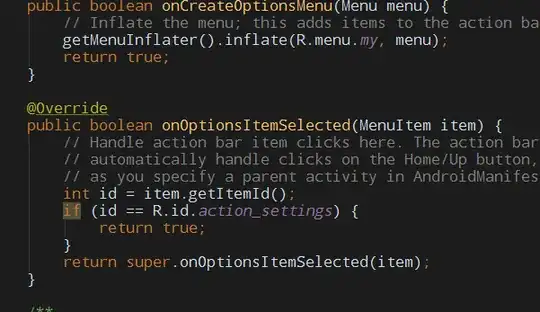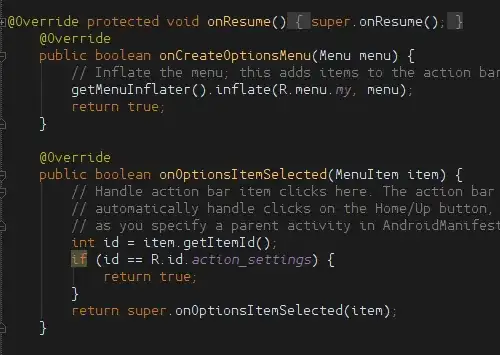
It doesn't even recognise it as a Monospaced font. Then it only shows anti-aliasing when the font size is set to 20 or over. But for other fonts it does it at 16.
The result is ugly looking fonts and eye-strain when set to 16, which is still large.
I have tried various settings for Dawt.useSystemAAFontSettings and still the same issue.
Ubuntu Monospace font looks fine in Eclipse and other text editors.Where in Eclipse it's size 12 and it renders fine.
Here are some screenshots Ubuntu Mono 16 :Ubuntu Mono 16
Ubuntu Mono 20 Ubuntu Mono 16
Source Pro 16 (I think comes with Studio) Source Pro 16
Ubuntu Mono 12 in Eclipse (ideal for me) Ubuntu Mono 12 in Eclipse
Is there another setting that is controlling what size to turn on anti-aliasing on a font. Is there a way to control the dpi setting used in the Android Studio.
Anyone else have other font recommendations. I have tried droid mono, and other default ones that come with Ubuntu.
The problem is not anti-aliasing - all of your examples show the text is anti-aliased fine.
The difference is in an aspect of font rendering called "hinting" - the top Ubuntu Mono example shows a strong hinting, whereas the bottom Ubuntu Mono example shows a smoother hinting. Hinting deforms the letter shapes to better align to the pixel grid and give a more crisp appearance.
Whether you like one or the other is a matter of personal preference. The top one is certainly very clear to read but at the expense of deforming the letter shapes.
The Java environment will be using its own font renderer rather than your global settings, hence the difference.
This one looks pretty simple (I have not tested this):
But the chosen solution is more complex.
• Tried it still the same issue, Android Studio will not apply Anti-Aliasing to the Ubuntu Mono at smaller sizes. While other IDEs have no problem applying it. – pt123 Jul 25 '15 at 03:17
• As I said, it is applying anti-aliasing, the difference is in the hinting. – thomasrutter Jul 25 '15 at 11:24
• I think it has more to do with a hidden setting which prevents it from applying anti-aliasing/hinting for font sizes below a certain size. – pt123 Jul 25 '15 at 14:15